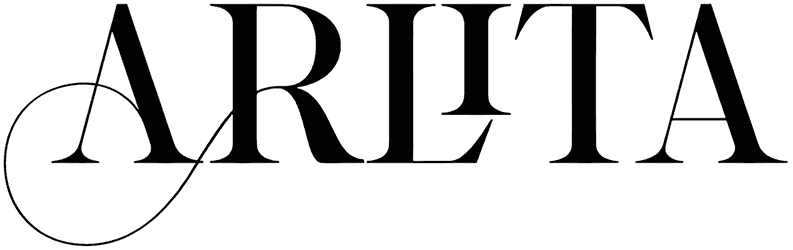
Arlita Font
Arlita is a timeless luxury serif font that comes with accurate kerning and looks perfectly matched with a huge set of editorial projects, ranging from movie posters, business cards, banner ads, blog posts, and diplomas. This artwork carries a sense of confidence, majesty, trustworthiness, and prestigious. Bear in mind to check out our archive to find many other products similar to this one.